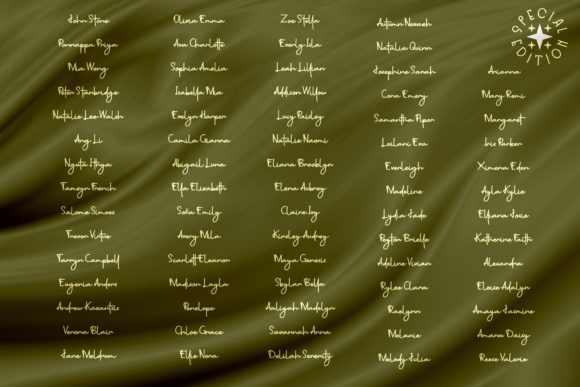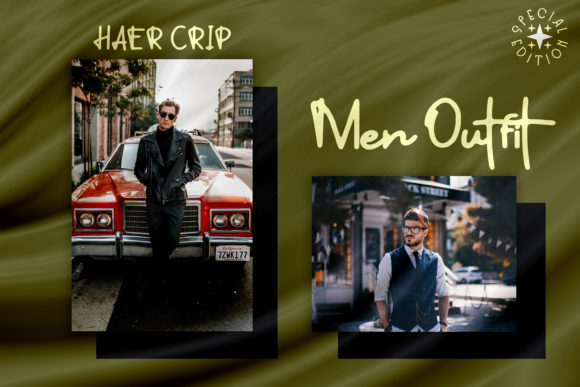
About Atlantha Font
Atlantha is a stylish script font suitable for any projects such as logos, branding projects, homeware designs, product packaging, mugs, quotes, posters, shopping bags, t-shirts, book covers, name cards, invitation cards, greeting cards, labels, photography, watermark, special events, and all your other luxury projects that need a premium signature taste.